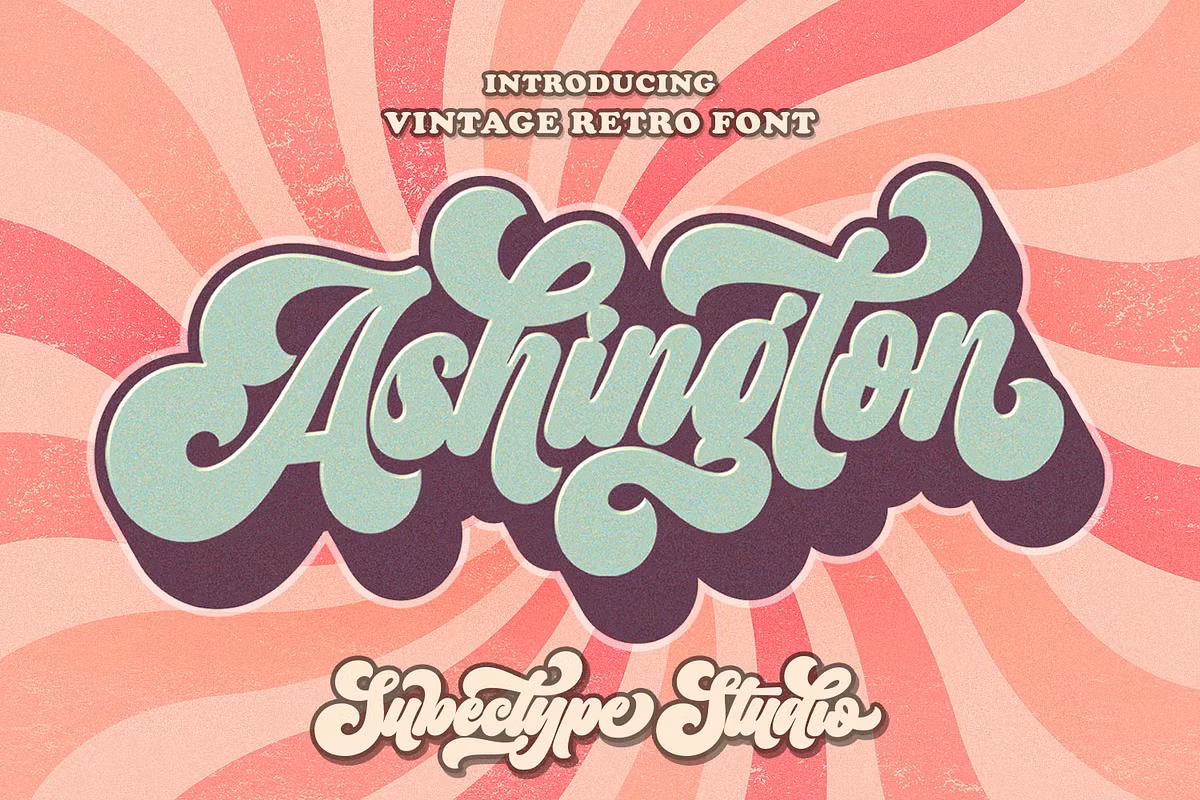
Retro Ashington - Vintage Font Free Download
Retro Ashington - Vintage Font Free Download is a bold and nostalgic typeface designed to bring the timeless charm of vintage design to your creative projects. With its retro-inspired letterforms and distinctive curves, this font is perfect for creating logos, posters, branding materials, and social media content with a classic yet modern feel. Its unique design captures the essence of old-school typography while maintaining a fresh, contemporary vibe. Whether you're working on a retro brand, a vintage event, or a creative marketing campaign, Retro Ashington - Vintage Font Free Download allows you to experiment with its eye-catching design in personal projects before purchasing a commercial license. Add a touch of vintage elegance and style to your designs with this beautifully crafted font.